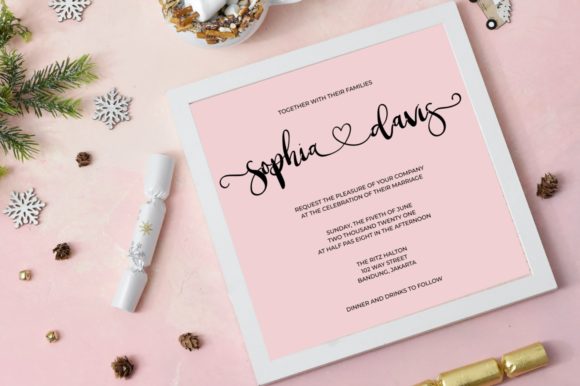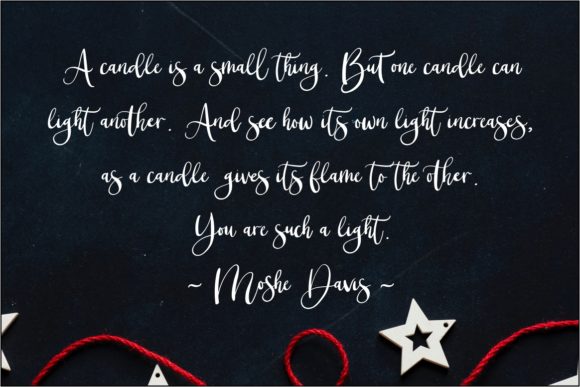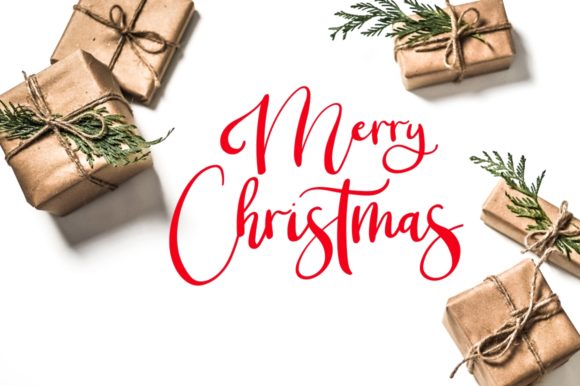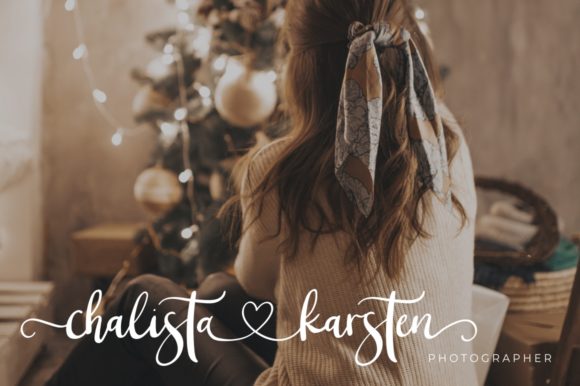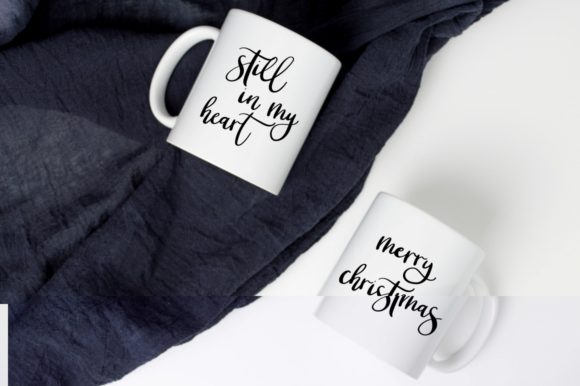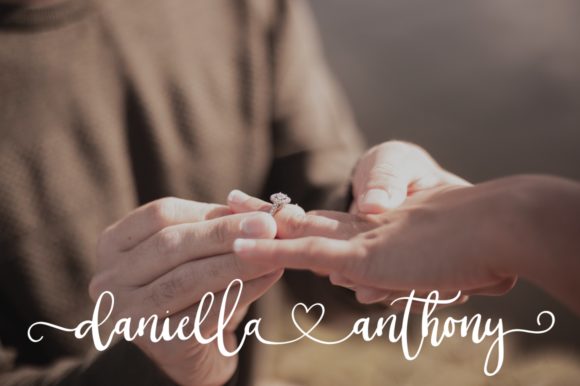
Introduction to Christmas Blossom Font
As a designer, there’s nothing quite like the thrill of discovering a new font that captures the essence of a project. For me, it was the moment I stumbled upon the Christmas Blossom Font, a stunning handwritten font that instantly elevated my creative vision. Its elegant and flowing script seemed to whisper magic, transporting me to a world of wonder and possibility.
With its PUA encoded glyphs and swashes, the Christmas Blossom Font is a design resource that’s both high quality and accessible. Whether you’re working on a free download project or a commercial design, this font is sure to add a touch of sophistication and whimsy to your creative project. And with its transparent background, you can seamlessly integrate it into your design without any distractions.
For designers, the Christmas Blossom Font is a valuable addition to any design toolkit. Its contemporary and fresh feel makes it perfect for a wide range of applications, from wedding invitations to social media graphics. So why not fall in love with this font and take your projects to the next level?
Key Features of Christmas Blossom Font
- High-quality design resource ideal for creative projects, such as greeting cards, posters, and flyers.
- Unique, hand-drawn design elements, including festive flowers and foliage, perfect for adding a personal touch to your holiday designs.
Honest Review: Christmas Blossom Font
I recently had the chance to try out the Christmas Blossom Font, and I must say it’s been a delightful addition to my design resource collection. The high quality and intricate details of the font make it perfect for any creative project that requires a touch of elegance.
However, I did notice a few limitations. The font is not suitable for large-scale text, and the intricacies of the design may get lost when scaled up. Additionally, the font is not as versatile as some other options on the market.
- ⚠️ Limitations:
- Not suitable for large-scale text
- May lose detail when scaled up
Overall, I’m impressed with the Christmas Blossom Font, and I think it’s a great addition to any designer’s toolbox. Just be mindful of its limitations, and you’ll be golden.
The Christmas Blossom Font is perfect for various creative projects, including holiday greeting cards, gift tags, and social media posts. Its elegant and festive design makes it a great addition to any design resource library, and it’s available for free download for your convenience.